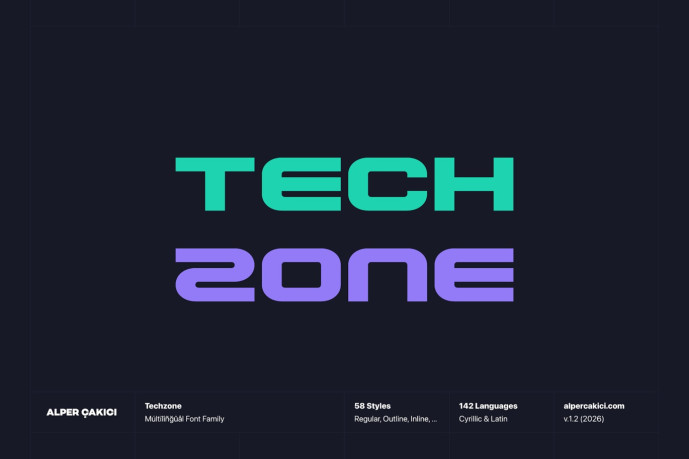
Techzone – Rounded Display Font
Designer: Alper Çakıcı
Techzone is a futuristic rounded technology font family built for innovation-driven design. Combining geometric precision with softened curves, it delivers a clean, modern voice that feels both digital and human.
With an extensive range of styles—from clean Regular and Italic to expressive Brush, Rough, Eroded, Pencil, Outline, Rimmed, Inline, and Noise variants—Techzone gives designers complete creative flexibility. The Circular and Rounded subfamilies expand the system even further, offering refined stylistic directions suitable for both corporate and experimental work. Techzone supports an impressive range of Cyrillic and Latin-based languages, making it ideal for global branding and international communication.